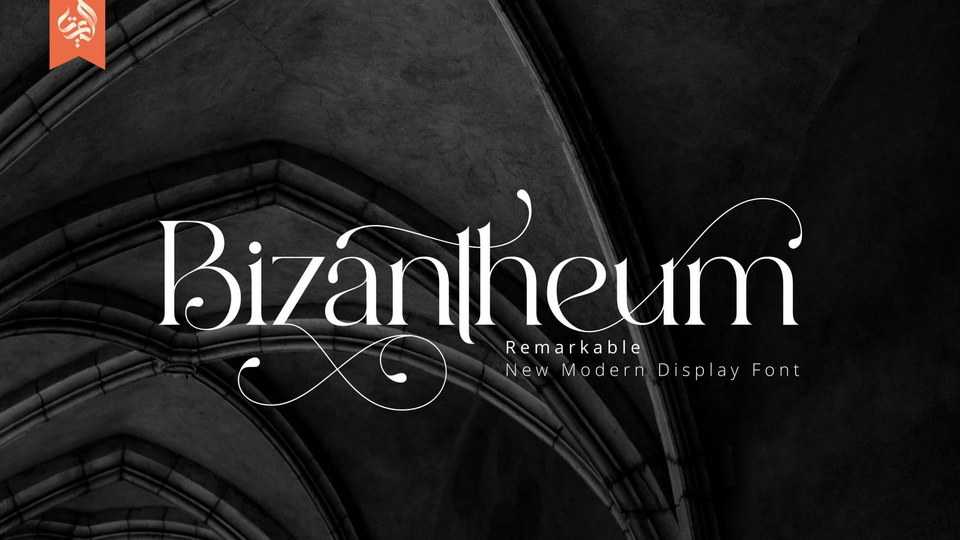
Download Bizantheum font, a remarkable modern display serif typeface. Bizantheum font was inspired by the majesty and mystique of the Byzantine era buildings.
Designer: Aluyeah Studio